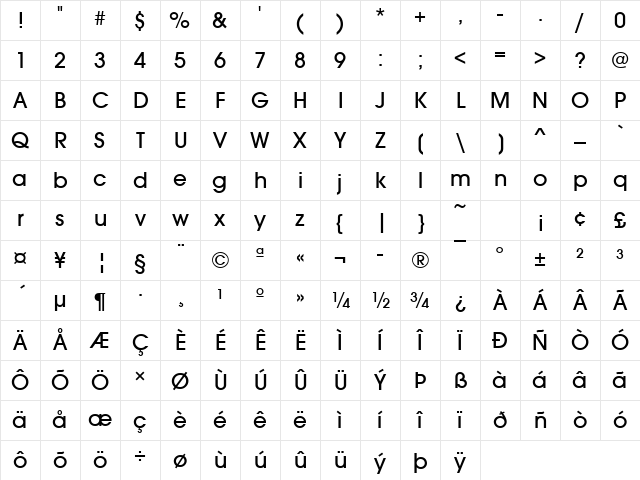
AvantGarGotItcTMed Regular
Design Context for AvantGarGotItcTMed
AvantGarGotItcTMed is a composed and adaptable typeface that performs quietly and consistently across a wide range of design contexts.